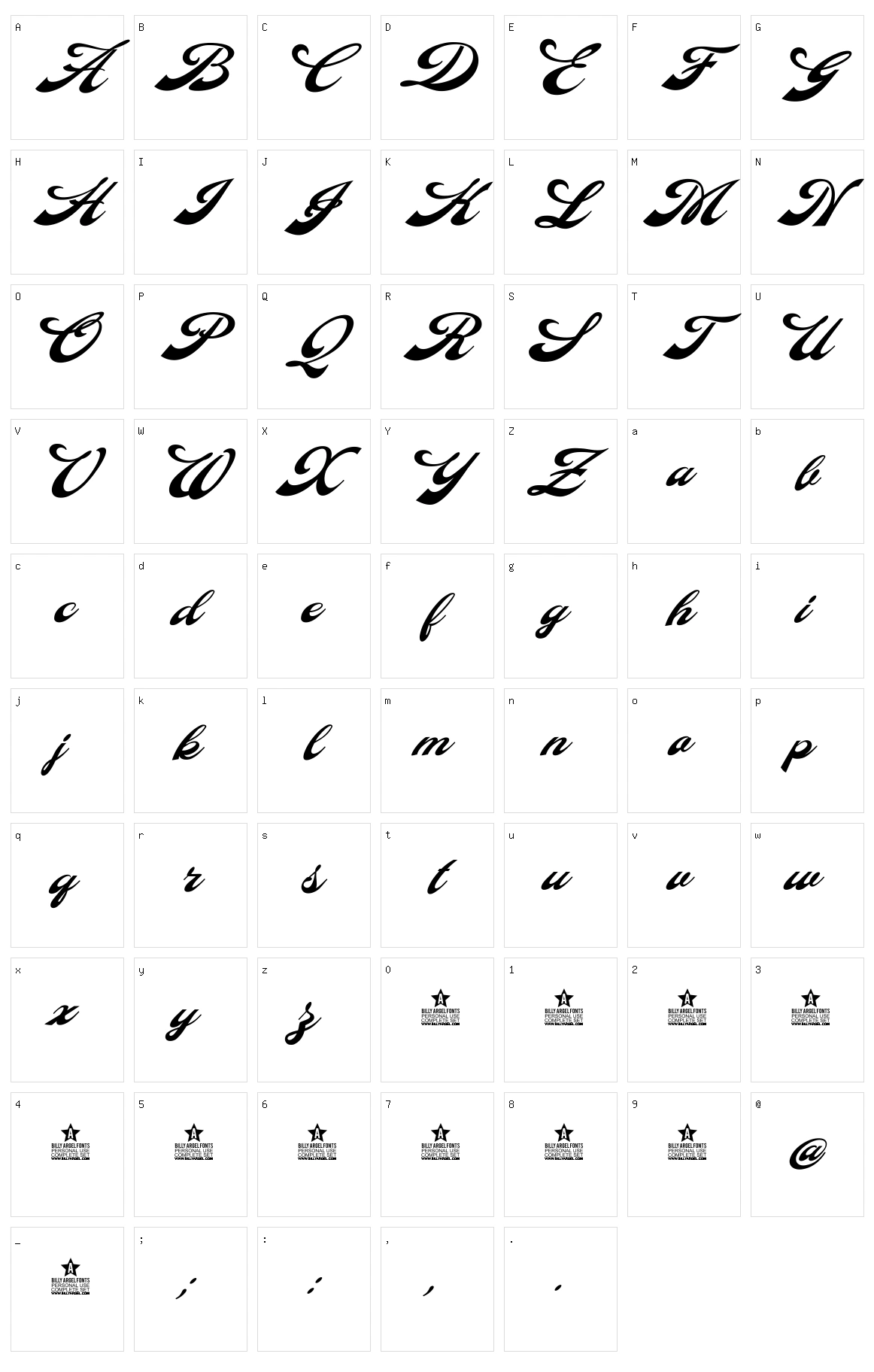
For different swashes.
Type underline + number like ( _1 ) for the swash one ( _2 ) for the swash 2 and sub consequently you will obtain 10 different swashes